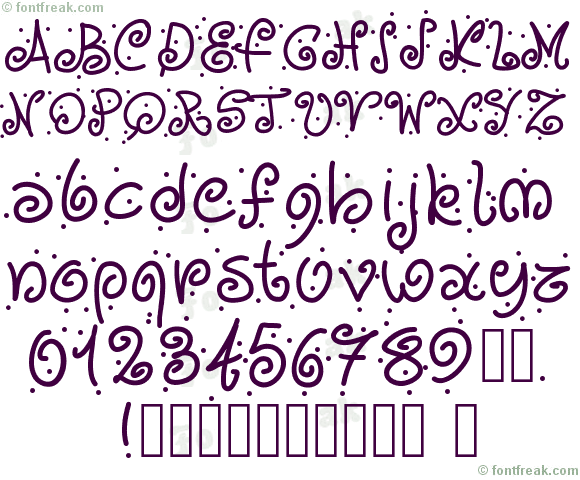
PWCurvesAndDots
The PWCurvesAndDots font by Peax Webdesign is a delightful display typeface that embodies a whimsical and playful character. This decorative font features rounded strokes and charming dots that create an inviting and friendly appearance. The stroke weight is consistent, ensuring legibility while retaining a lighthearted essence. The spacing is well-balanced, allowing for easy reading, and the decorative elements, including the curves and playful dots, add a unique flair that sets it apart from traditional typefaces.
This font is particularly well-suited for various creative applications. It works wonderfully for children's book covers or educational materials, where the friendly design can engage young readers. Additionally, PWCurvesAndDots is perfect for wedding invitations, offering a light and joyful aesthetic that complements the celebratory nature of the occasion. It also shines in restaurant menus, especially for casual dining establishments aiming to convey a fun and relaxed atmosphere. Graphic designers will find it useful for branding projects that require a distinctive and approachable look, making it a great choice for logos and promotional materials as well.
What makes PWCurvesAndDots stand out is its ability to convey warmth and friendliness while maintaining clarity and professionalism. Its distinctive curves and playful dots create an engaging visual experience, making it an excellent choice for those aiming to leave a lasting impression through their designs. Whether for personal or commercial projects, this font adds a unique touch that resonates with audiences.